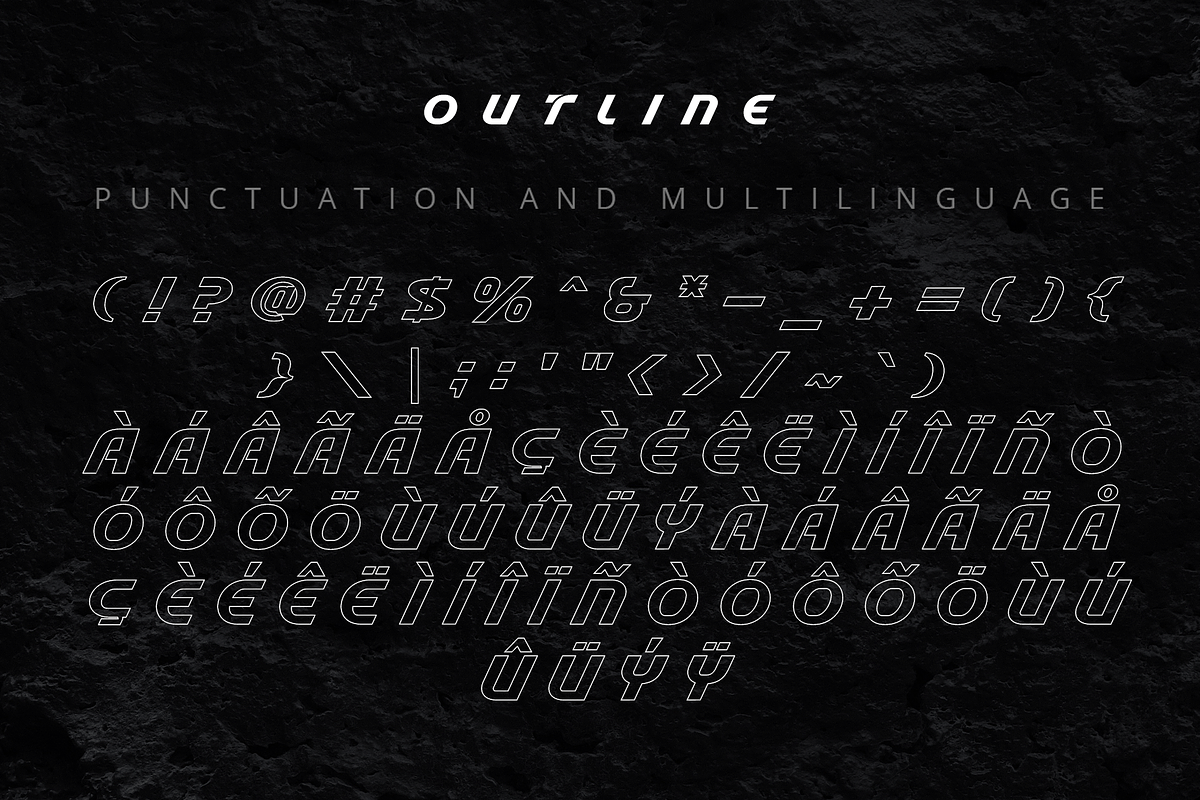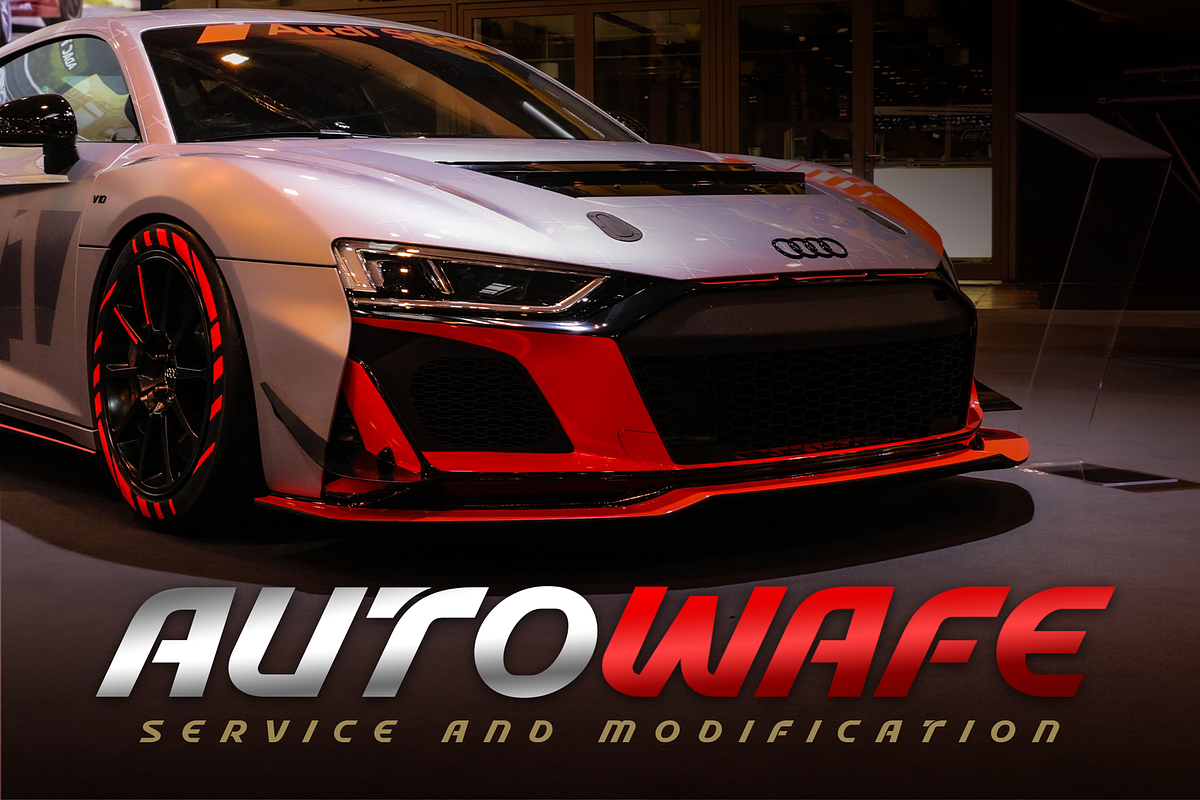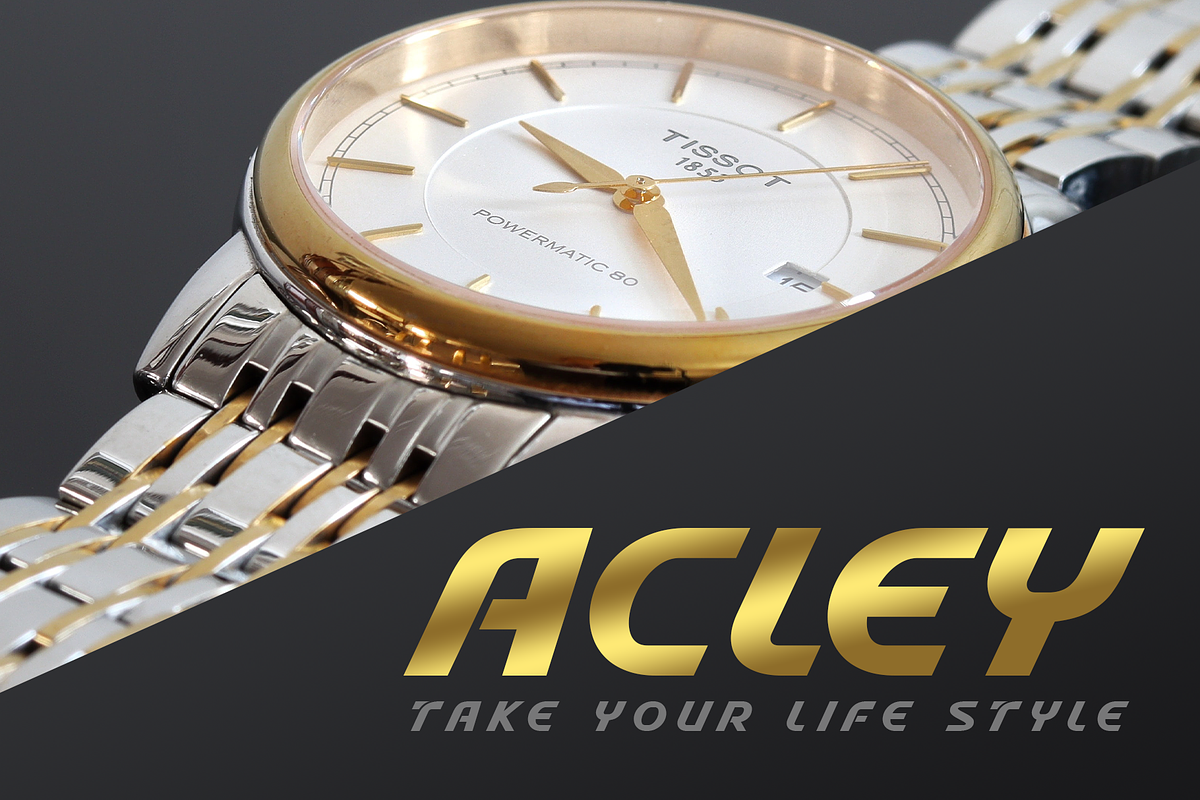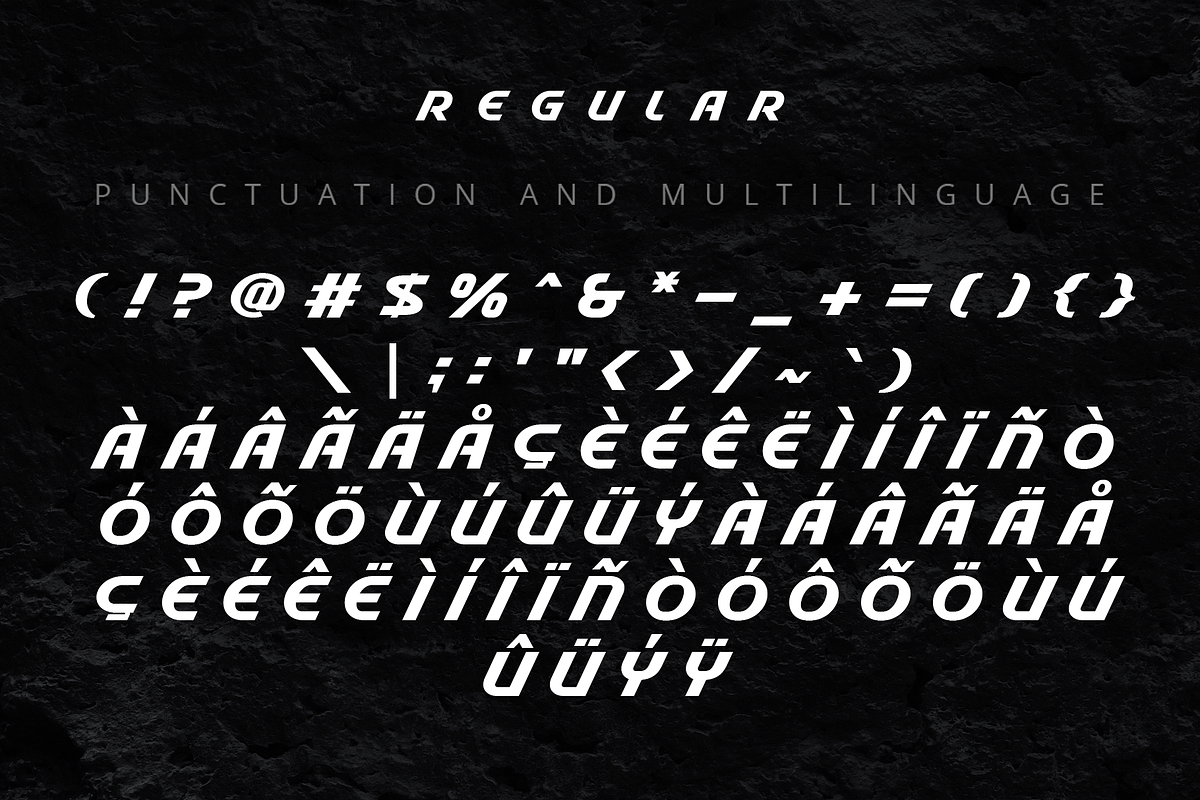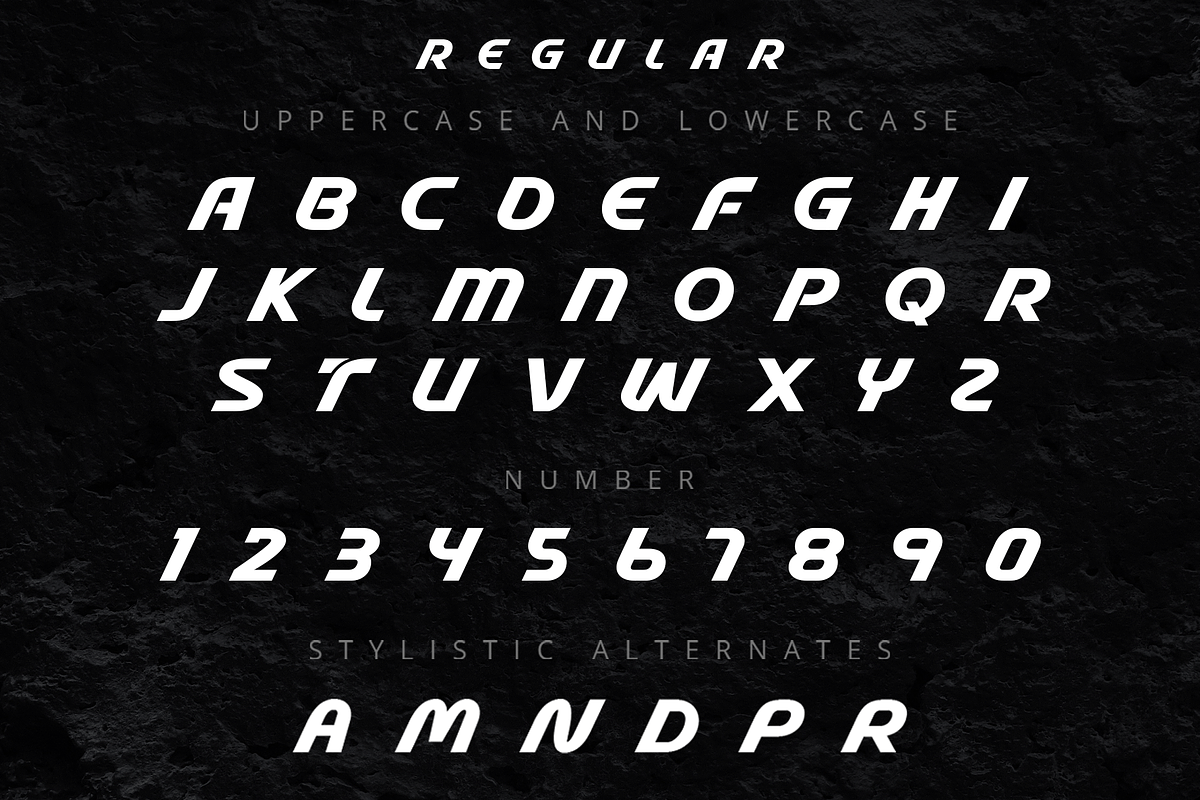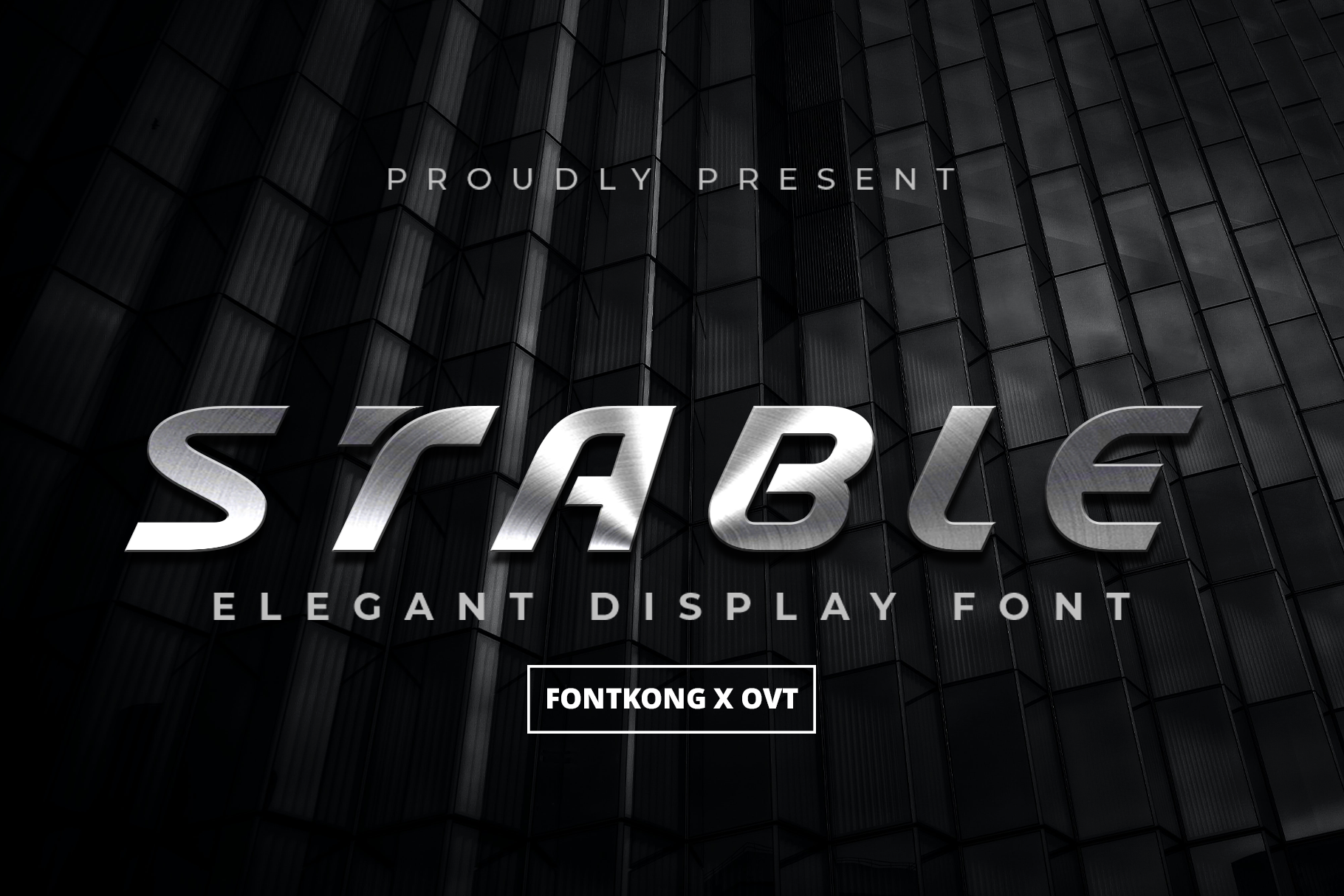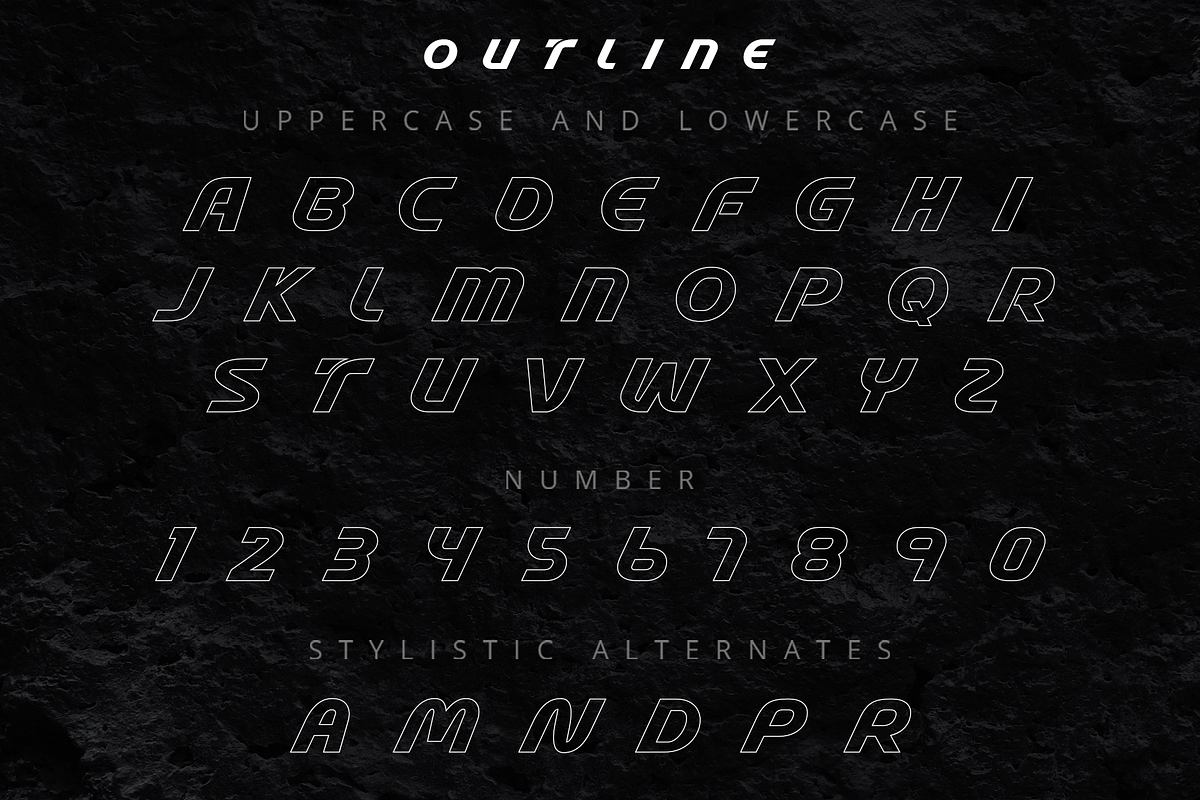
Stable - An Elegant Display Font
Stable is an elegant and versatile display font designed to bring a touch of sophistication and class to your design projects. With its clean lines and refined letterforms, Stable is perfect for high-end branding, sophisticated posters, elegant invitations, and chic packaging. This font embodies timeless elegance, ensuring your work stands out with a polished and professional look.
Crafted with precision, Stable features sleek and well-defined characters that offer excellent readability and visual harmony. Its elegant design makes it ideal for display purposes, providing a distinguished and memorable presence. The font’s versatility allows it to adapt seamlessly to various design contexts, from digital screens to printed materials, making it a valuable asset for any designer aiming to create refined and impactful visuals.
Elevate your design projects with Stable, a font that captures the essence of classic elegance. Its unique style and adaptability make it an essential addition to any designer’s toolkit for creating sophisticated and captivating designs. Enhance your work with Stable and experience the beauty of elegant display typography.